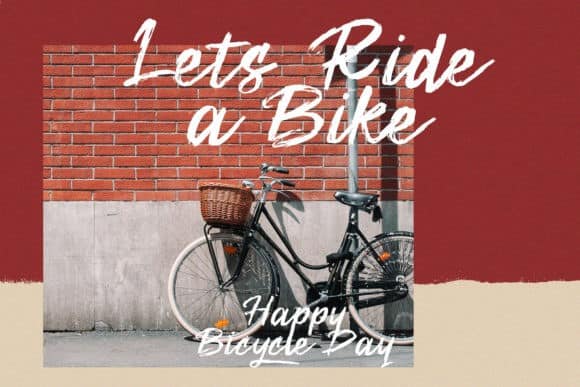
Thanks for checking out Zenghief Brush Font – A beautiful textured brush Typeface, a contemporary approach to design, naturally handmade and with a cool underlines. It also has several ligatures and alternatives that make your design more attractive.
Suitable for use in title designs such as clothing, invitations, booklets, quotes, branding, logos, stationery designs, greeting cards, t-shirts, packaging designs, posters and more.